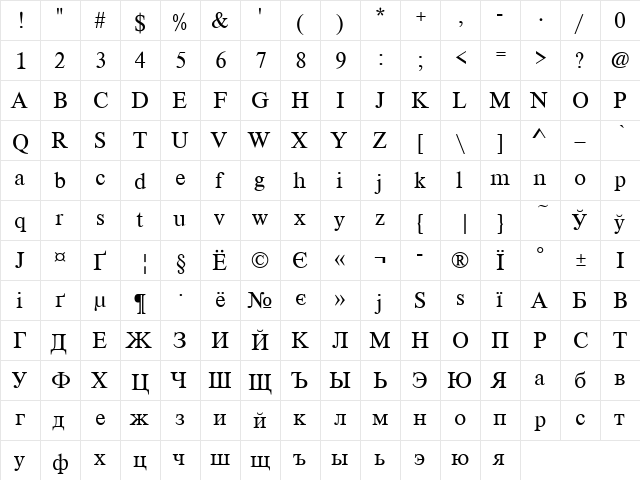
Timeless T CY Light
Design Context for Timeless T CY Typeface
Timeless T CY is a composed and adaptable typeface that performs quietly and consistently across a wide range of design contexts. The delicate stroke weight brings airiness and refinement to layouts.